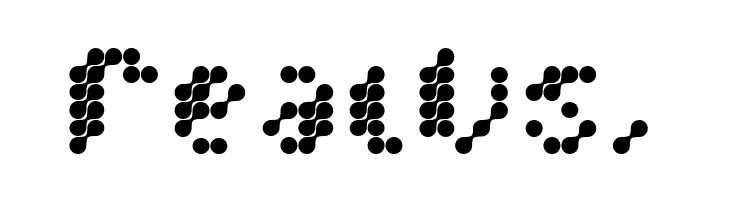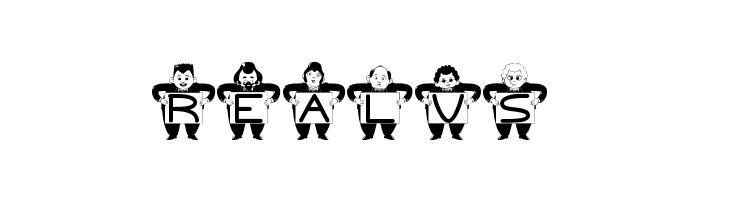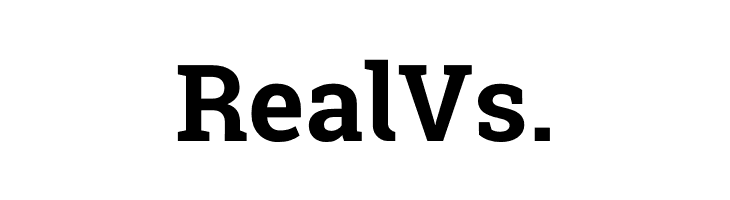
A modern serif font with clean lines and elegant curves.
Decorative script font with high contrast and flowing lines.
A geometric, maze-like font with a modern, digital aesthetic.
A futuristic, geometric font with a double-line structure and consistent stroke width.
A decorative font with intricate, ornate details reminiscent of Arabic calligraphy.
A bold, angular font with dynamic, geometric shapes.
A playful decorative font with unique stick figure characters.
Animal-themed decorative font with illustrated characters.
A decorative dingbat font of human silhouettes and cartoon figures.
Hand-drawn animal illustrations form each character, creating a playful and decorative font.
A playful, character-based decorative font with each letter held by a cartoon figure.
A whimsical, cartoon-like font with characters integrated into playful figures.
An elegant and fluid script font with a dynamic, cursive style.
A bold, monospaced font with a clean and modern design, perfect for coding.
A modern, monospaced font with bold italic styling, ideal for coding and technical use.
A modern, monospaced italic font with medium contrast and normal spacing.
A clean, monospaced font ideal for coding and technical documentation.
A bold, monospaced font ideal for coding and technical documents.
A bold, italic, monospaced font with a modern and dynamic style.
A modern, monospaced italic font with medium contrast and balanced spacing.
A clean, modern monospaced font ideal for coding and technical use.
A bold, monospaced font with a clean and modern design, perfect for coding.
A bold, italic, monospaced font with a modern and clean design.
A clean, monospaced italic font with medium contrast and modern appeal.
A clean, modern monospaced font ideal for coding and technical documentation.
A decorative font featuring intricate, tribal-inspired glyphs of animals and mythical creatures.
A decorative set of glyphs inspired by Mesoamerican fauna, featuring intricate and bold designs.
A bold, geometric font with a futuristic and industrial design.
A bold, angular, and geometric decorative typeface.
A sleek, modern font with geometric lines and balanced characters.